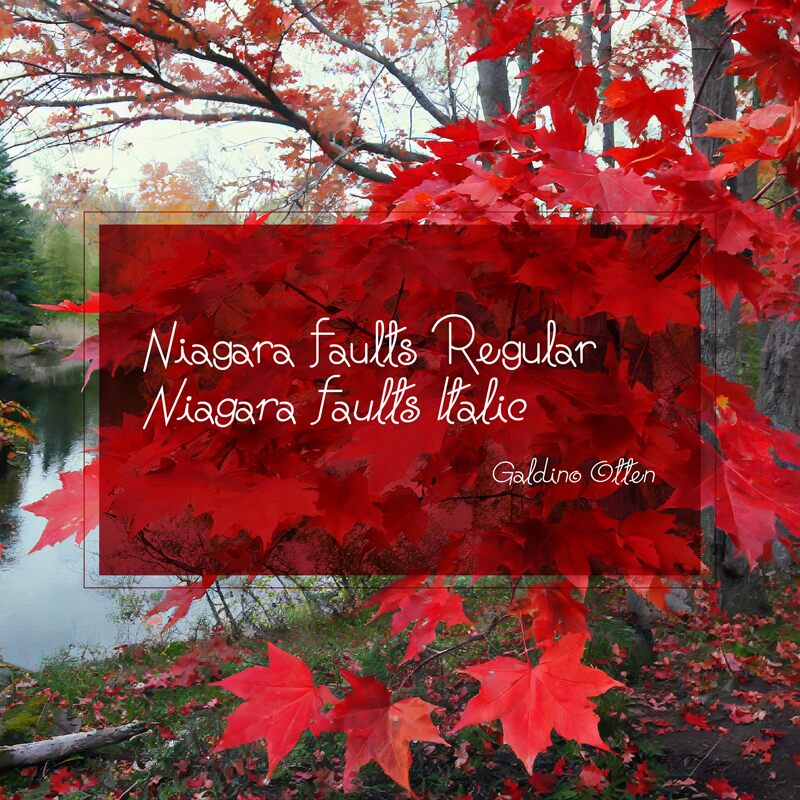
Niagara Faults Italic
Niagara Falls is a captivating handwritten font exuding a sense of fluidity and elegance. Its light, organic strokes evoke a touch of natural grace, lending a distinct charm to any design. The font's cursive aesthetic seamlessly blends the whimsical and the refined, making it a versatile choice for a wide range of applications, from editorial layouts to branding materials. Niagara Falls' distinctive character and effortless style make it a standout option for designers seeking to infuse their work with a touch of timeless sophistication.
The font's fluid lines and delicate touch lend themselves beautifully to projects that demand a touch of artistry and refinement. From wedding invitations to book covers, Niagara Falls can elevate the visual appeal of any design, injecting a sense of sophistication and charm.